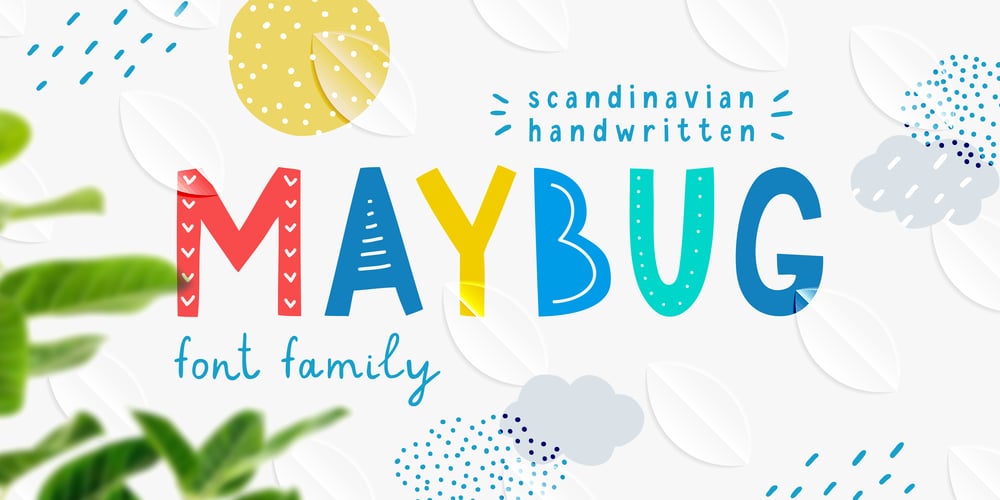
Maybug MS Font Family was designed by Marina Sozonova and published by Redcollegiya. Maybug MS contains 4 styles and family package options. Maybug is a Scandinavian font family which makes it great for any children’s design: greeting cards, invitations, posters, textile prints or book covers. You can mix letters of all styles to get really funny and unusual compositions.